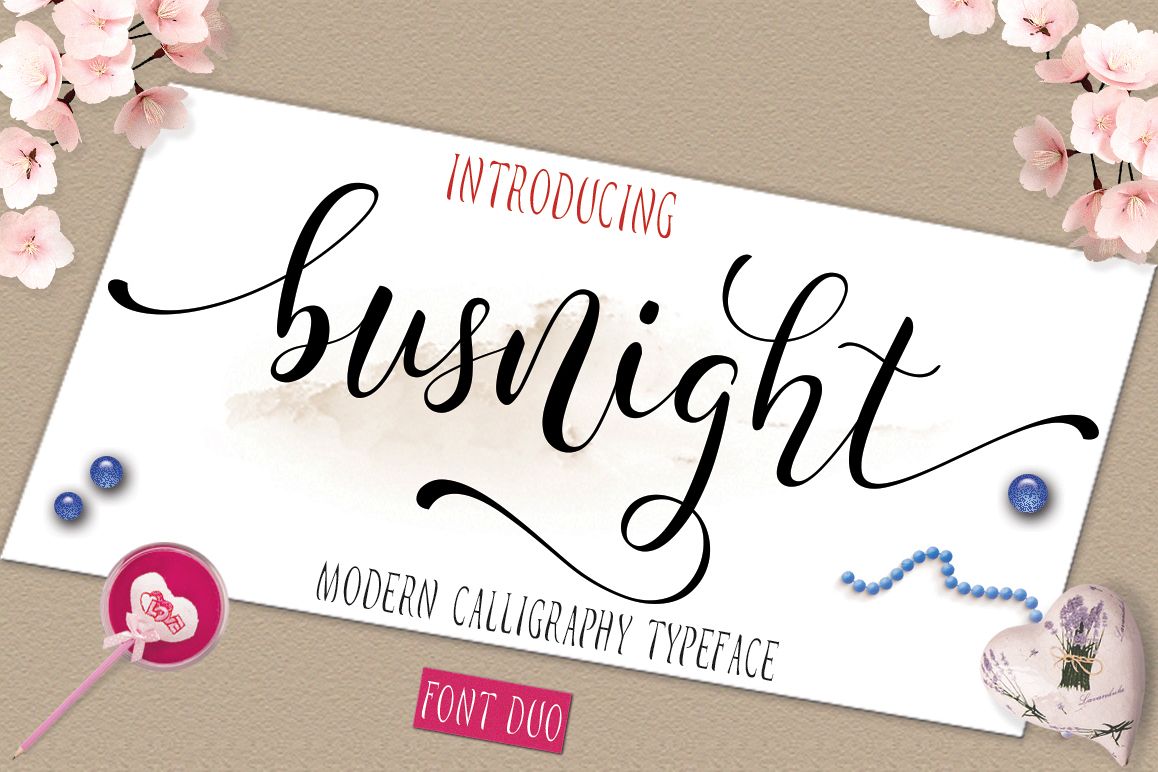
Busnight Font Duo
INTRODUCING Busnight Script: the newest else is so beautiful and comes with two very elegant fonts that are designed to compliment each other perfectly.
1. Busnight Script: A hand calligraphy, smooth, modern and clasik, calligraphy wavy, which was created to meet the needs of your next design project. Busnight Script, Can used for various purposes. such as the title, signature, logo, correspondence, wedding invitations, letterhead, signage, labels, newsletters, posters, badges, etc.
Busnight Script features 698 glyphs and has given PUA unicode (specially coded fonts), can be accessed easily with the character map, can be accessed in full by the lovers of letters or artisans to increase career in the design world.
2. Busnight Sans : font style is classic and elegant which has a varying basis. easy to read handwriting stand tall and Sturdy, very easy to use and Gives the feel of handmade illustration work you. Including one font with all the basic characters.
The Features of this fonts is: Standart ligatures, Stylistic Sets and swashes.